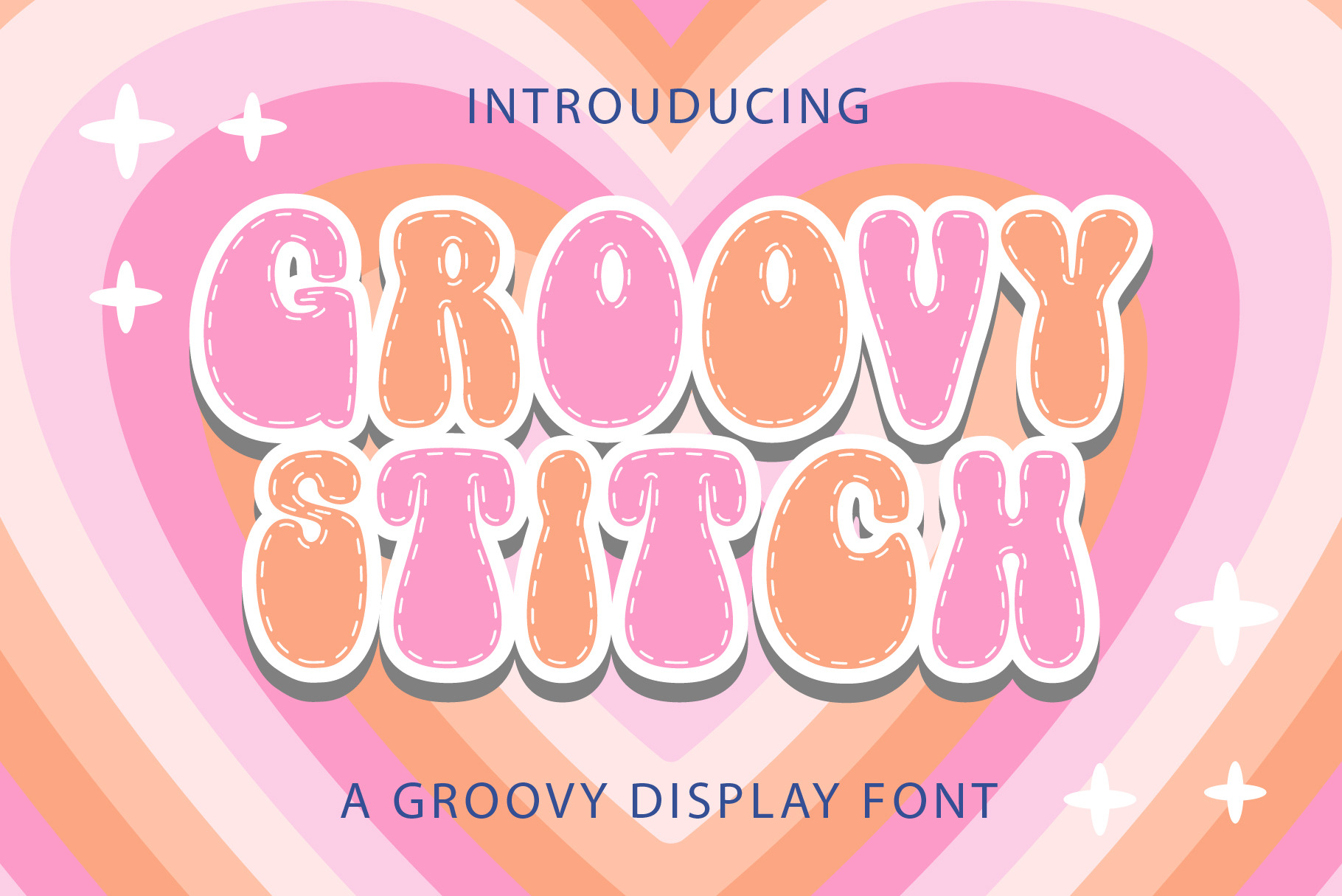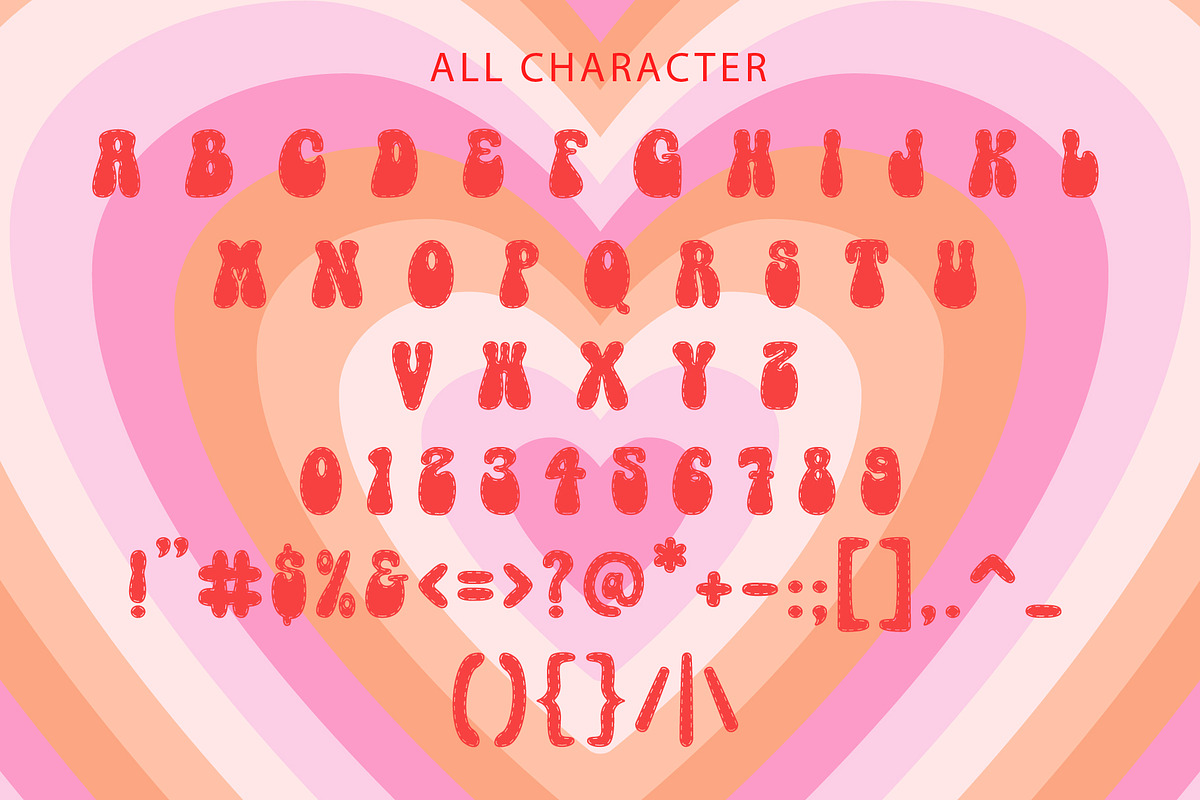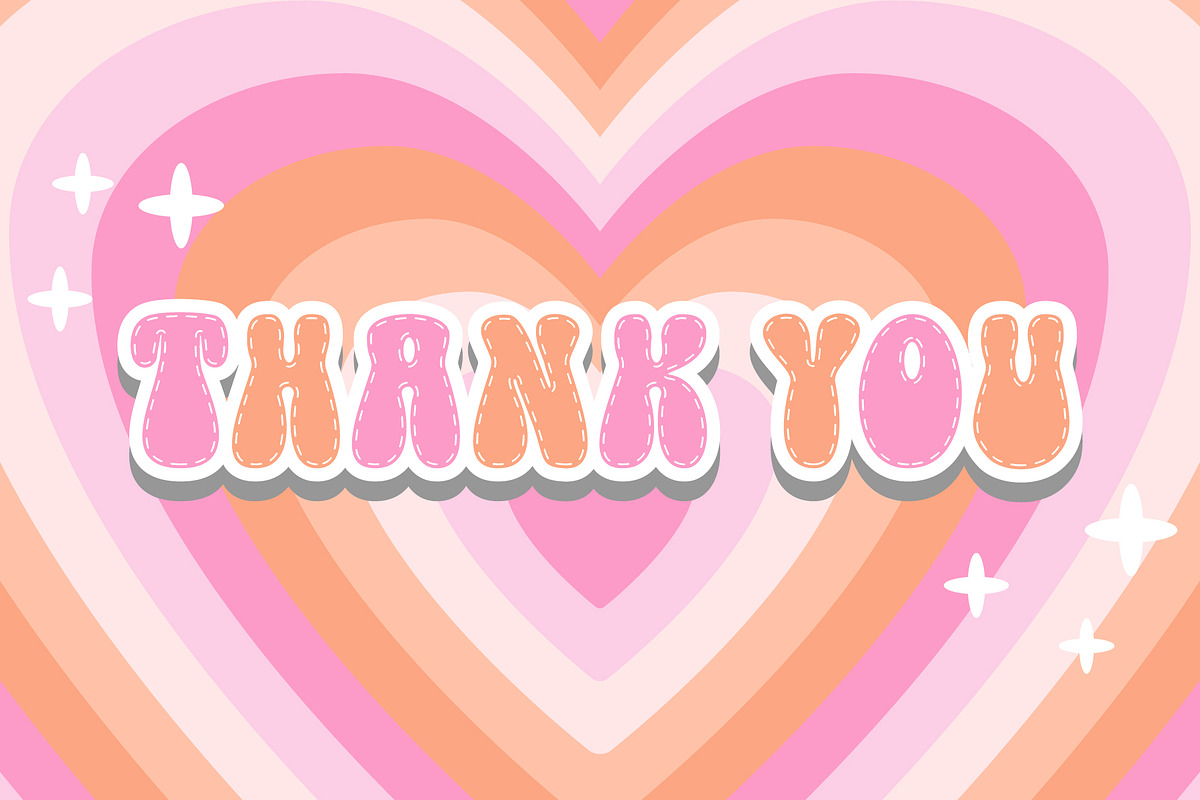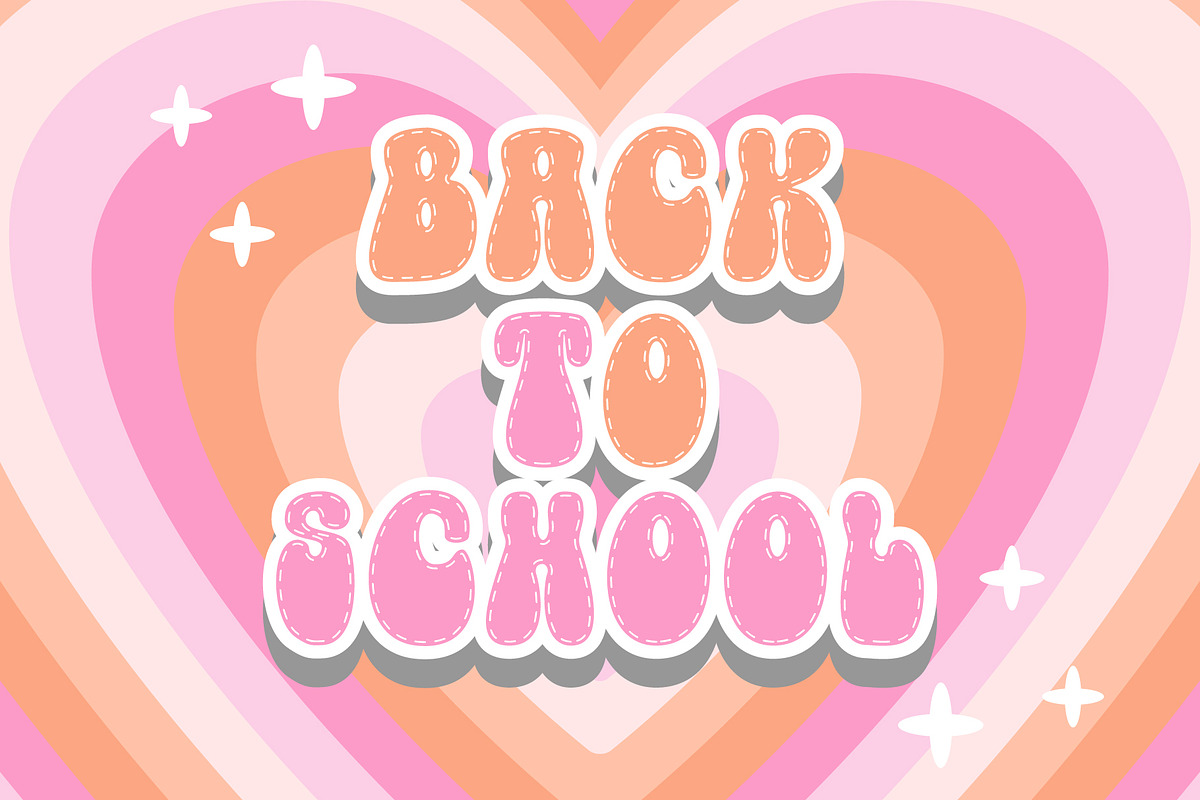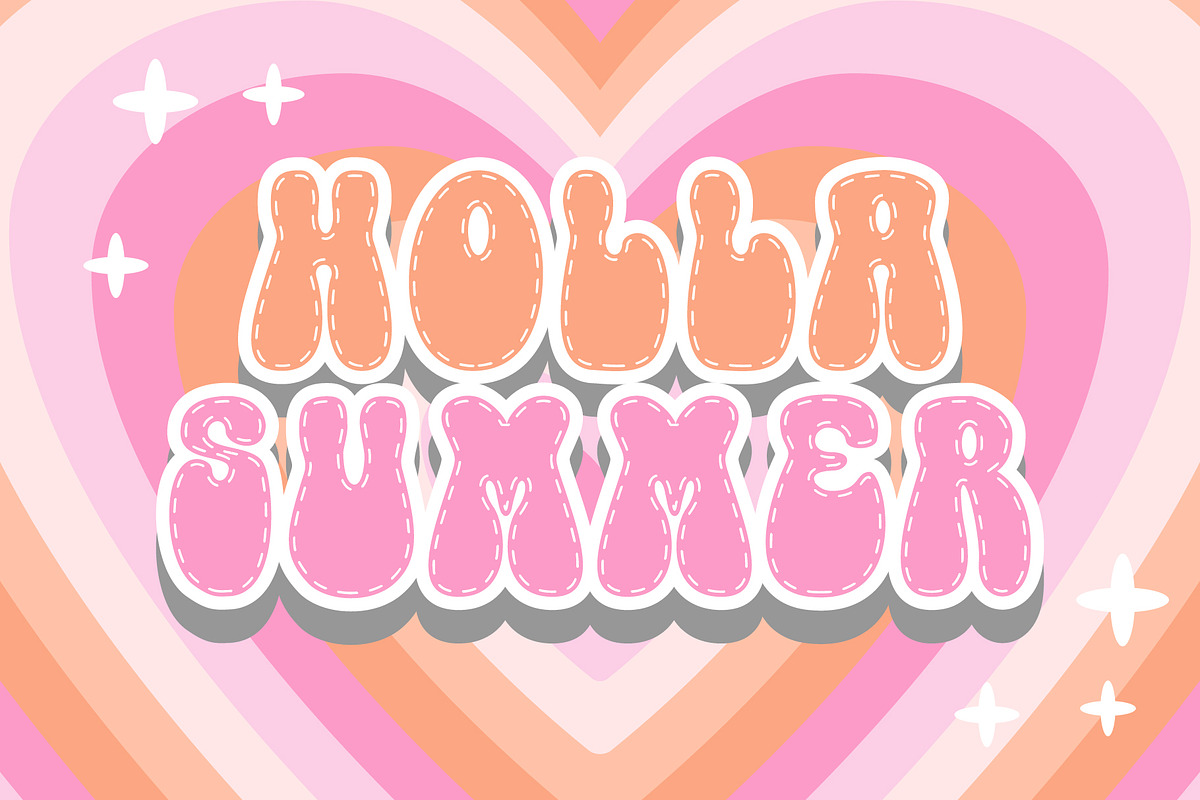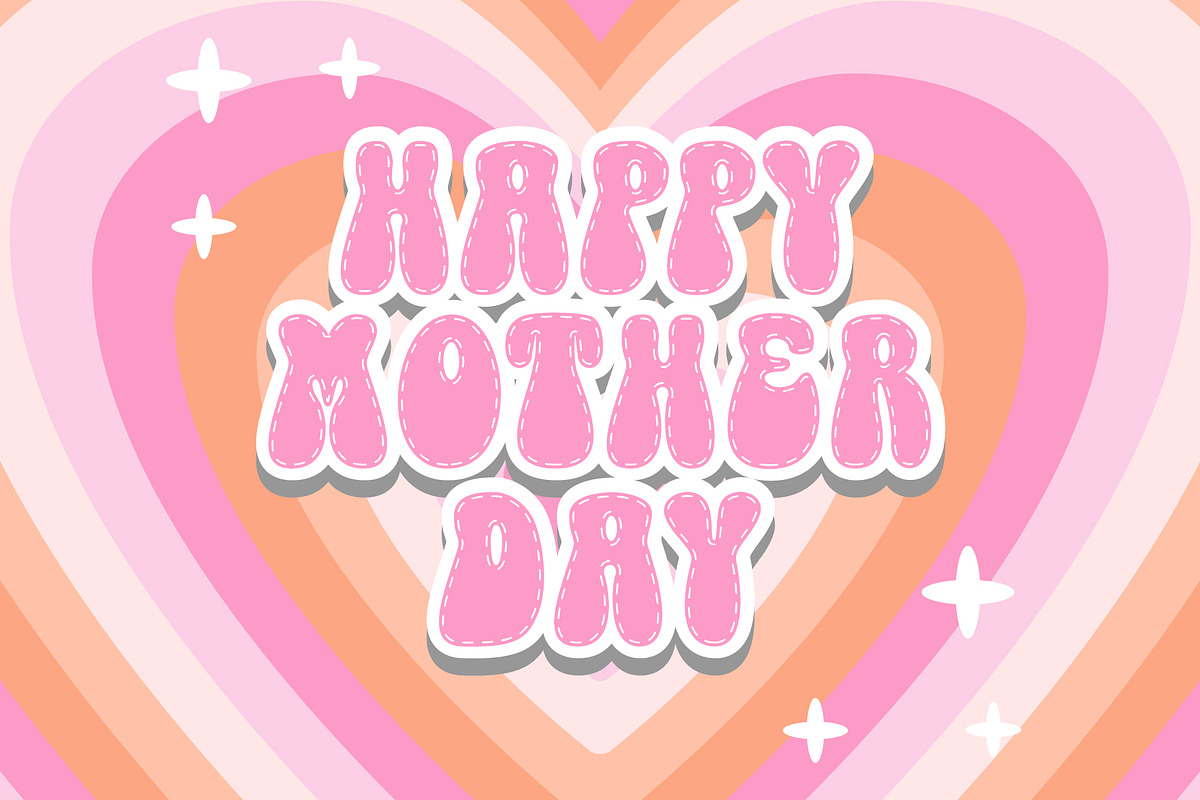
Groovy Stitch - Groovy Font
Groovy Stitch is a versatile, stylish,groovy, and playful retro display font, perfect for a wide spectrum of applications such as greeting cards, headlines, and more! Add it to any of your creative projects, and it will give them a romantic and exquisite feel.